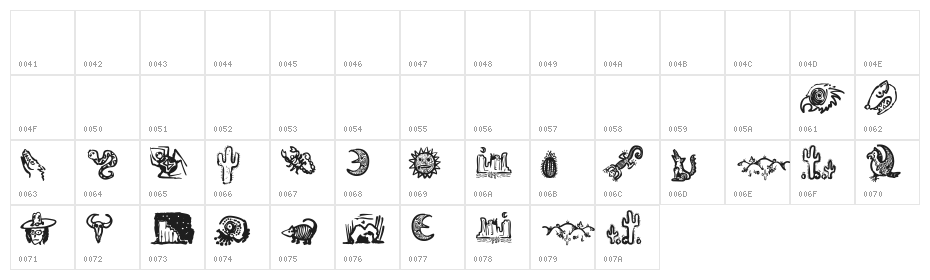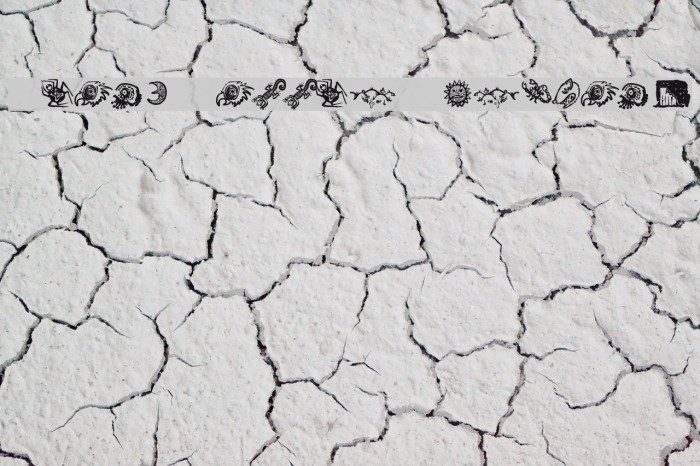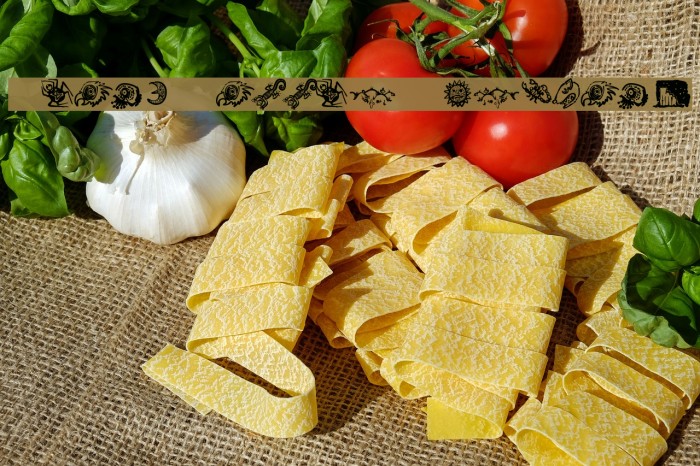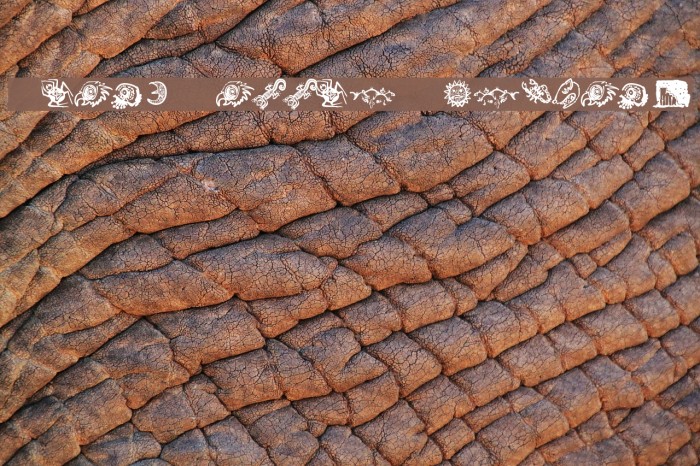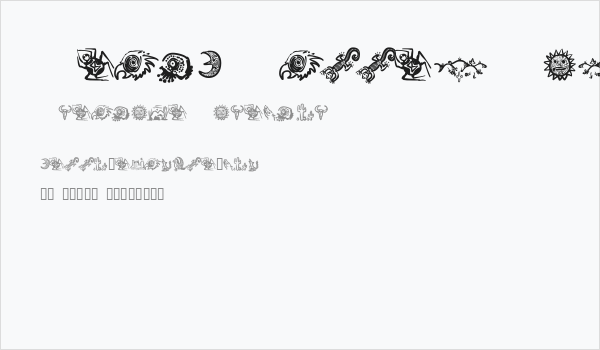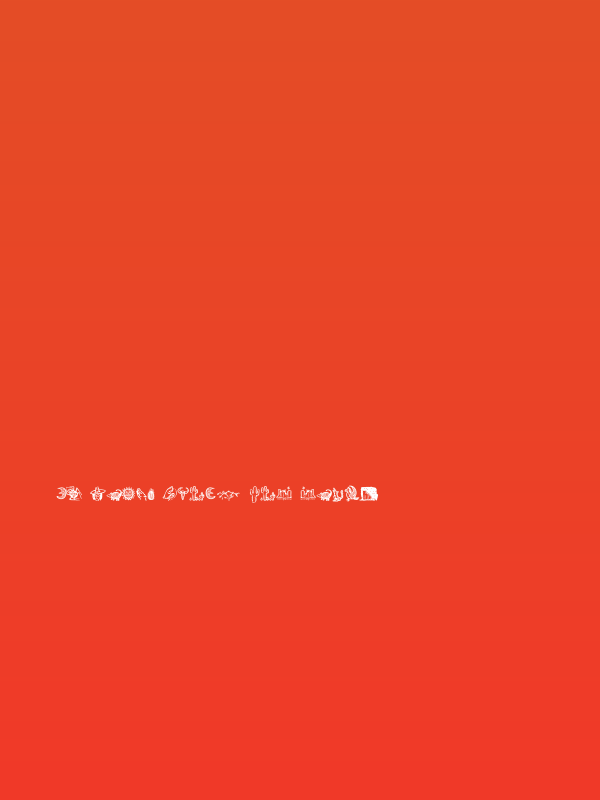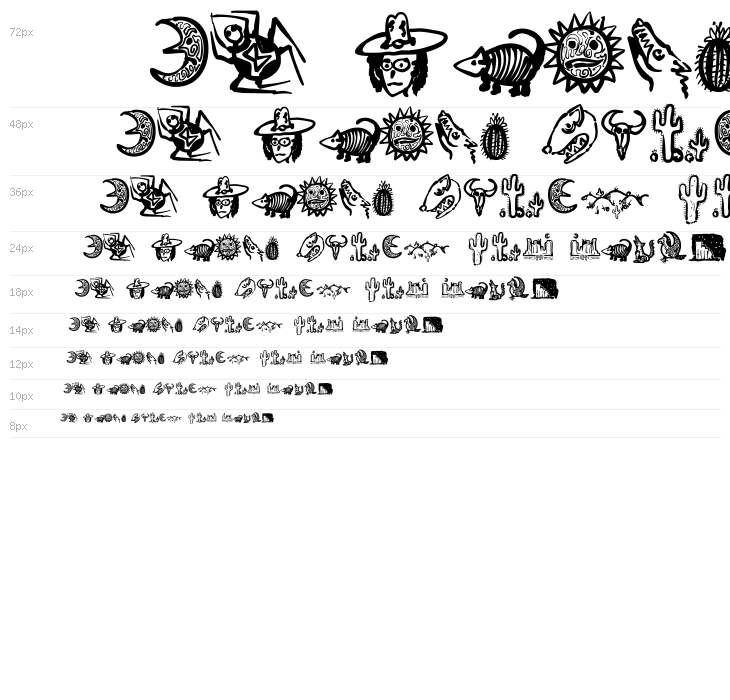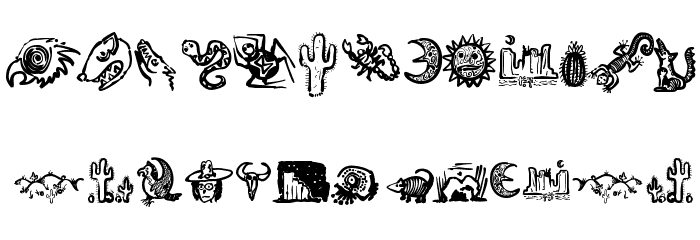
Death Valley Dingbats Font
Death Valley Dingbats Description
This collection features a series of unique, illustrative symbols inspired by desert themes. Each character is a detailed depiction of elements such as cacti, desert animals, and celestial bodies, rendered in a bold, graphic style. The designs are intricate, with a playful yet rugged aesthetic that captures the essence of the desert environment. The symbols are highly decorative, making them ideal for creative projects that require a distinctive and thematic touch. The overall style is reminiscent of traditional desert art, with a modern twist that adds to its visual appeal.
Use CaseLogos, Posters, Themed Invitations
Proposed ProjectsIdeal for use in themed graphic design projects, such as posters, event invitations, or branding for businesses related to outdoor activities or desert tourism.